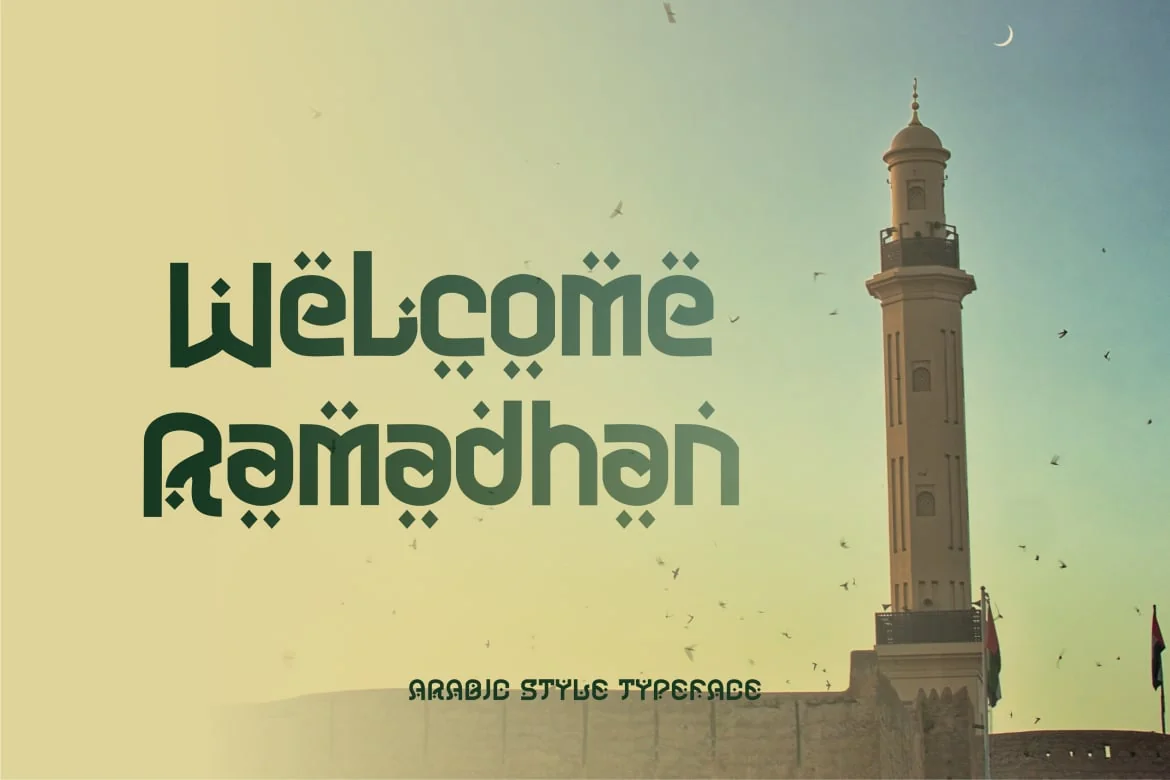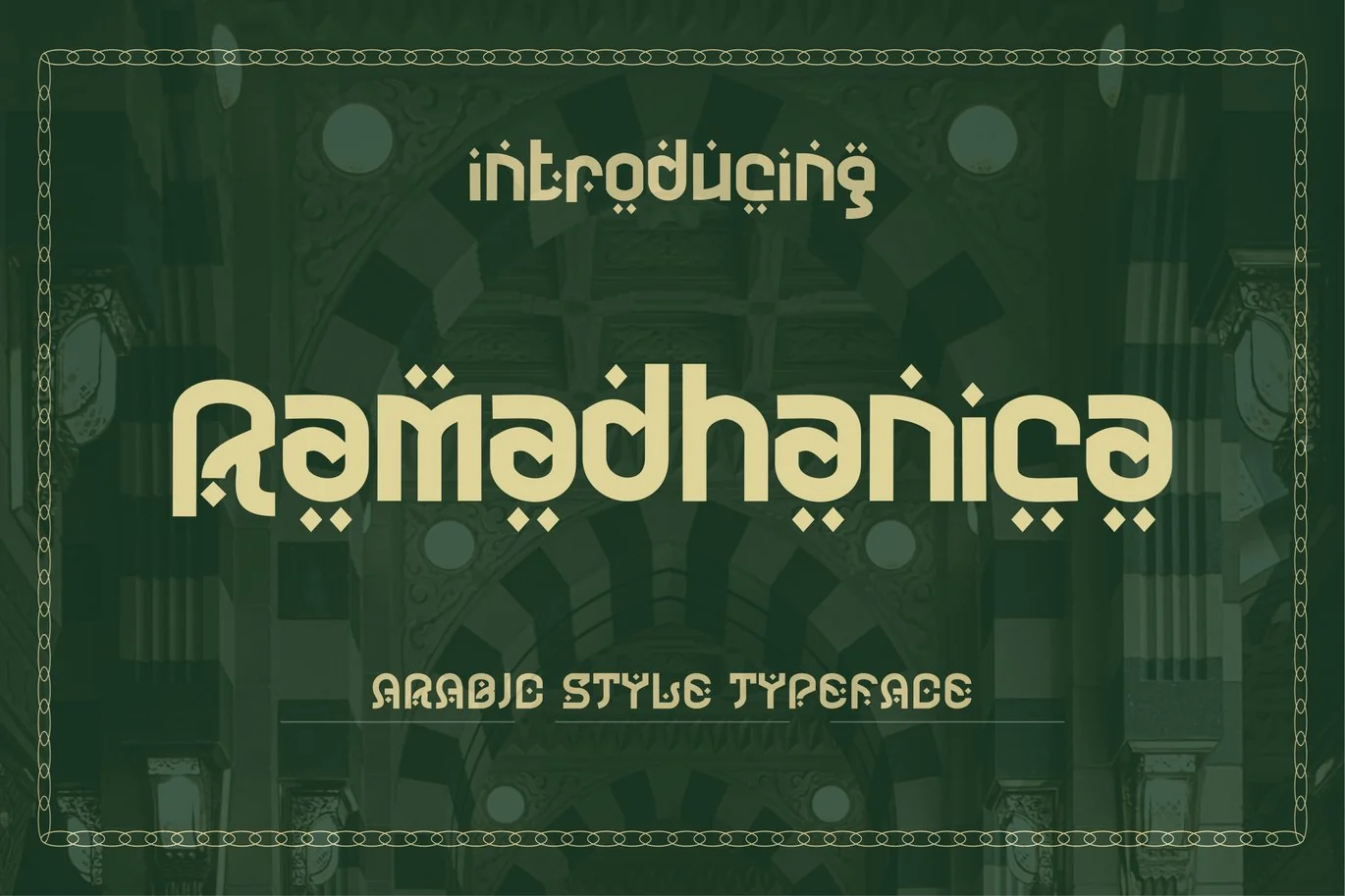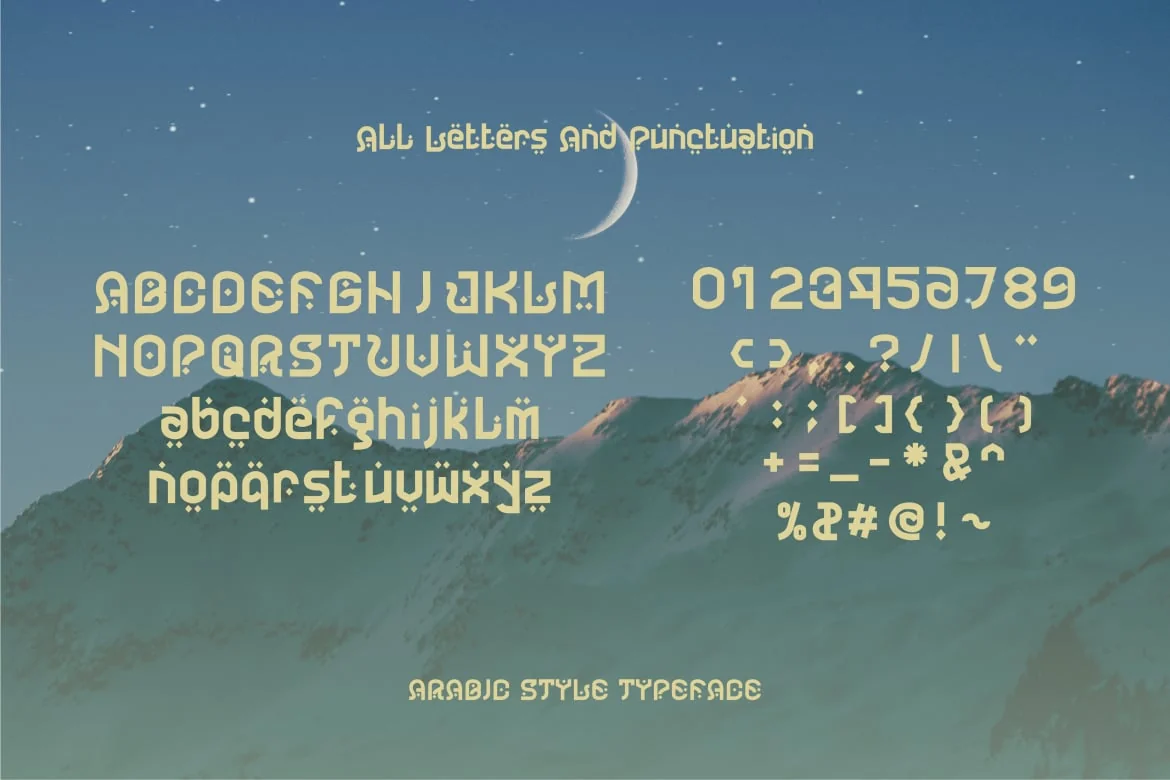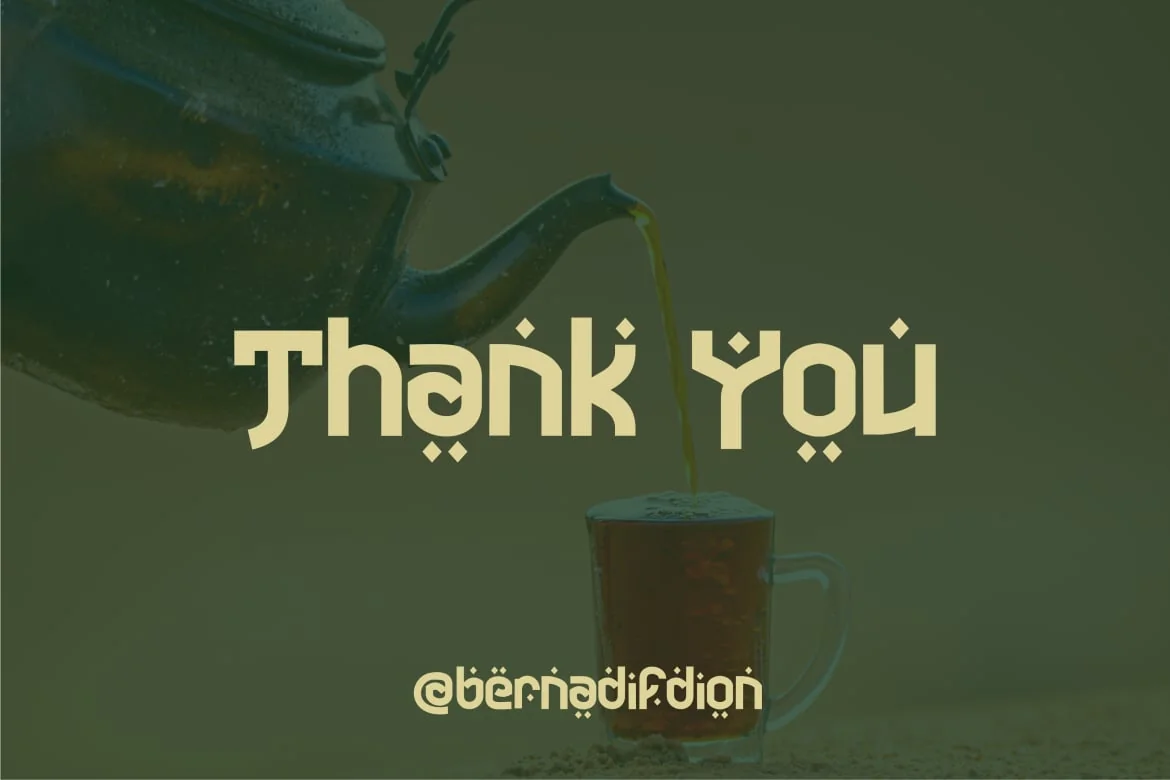
Ramadhanica Decorative Font Display
Introducing our new product Ramadhanica Decorative Font
Modern Font Ramadhanica Decorative Font –
Modern Font is a bold and authentic display font. The font is suitable for any branding project like logo, t-shirt printing, Product and many more. outstanding in a wide range of contexts.